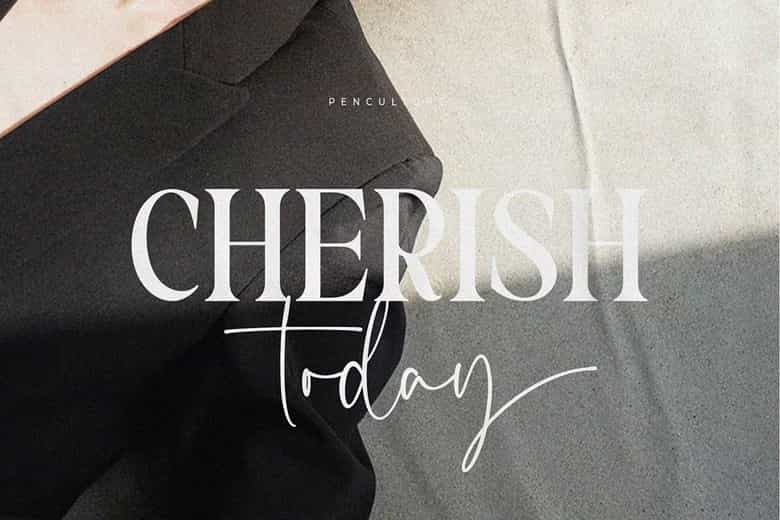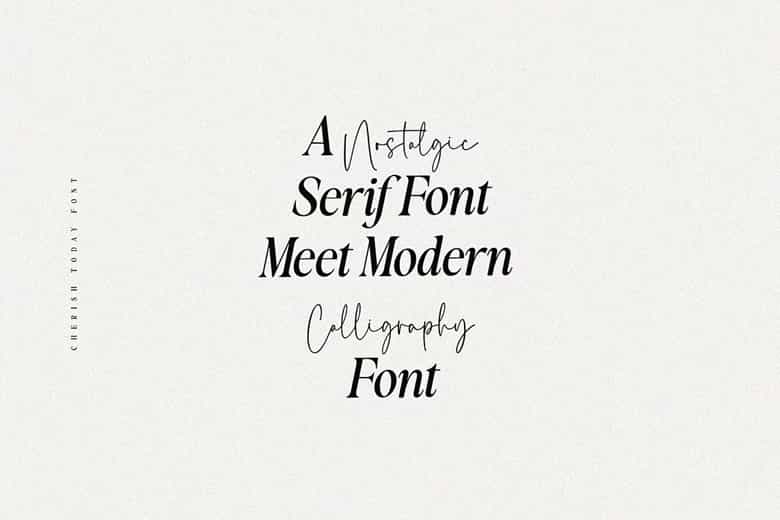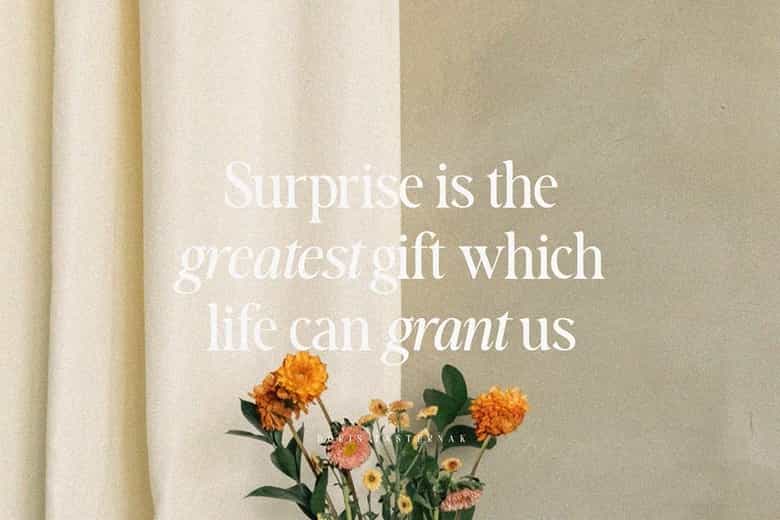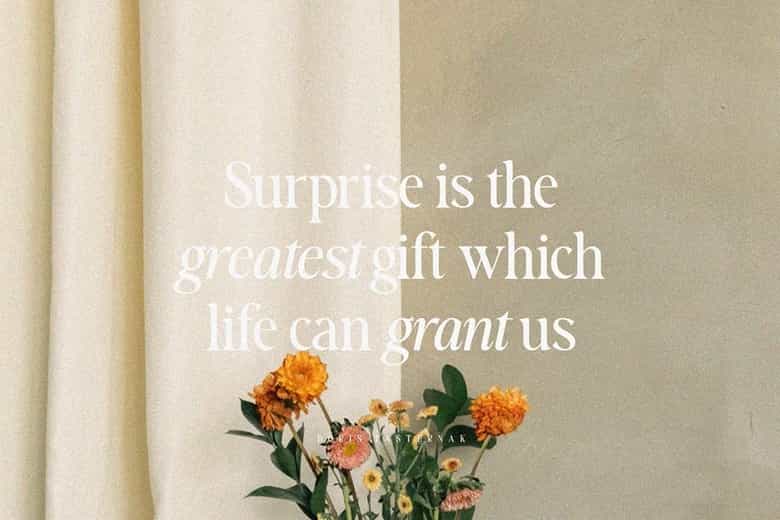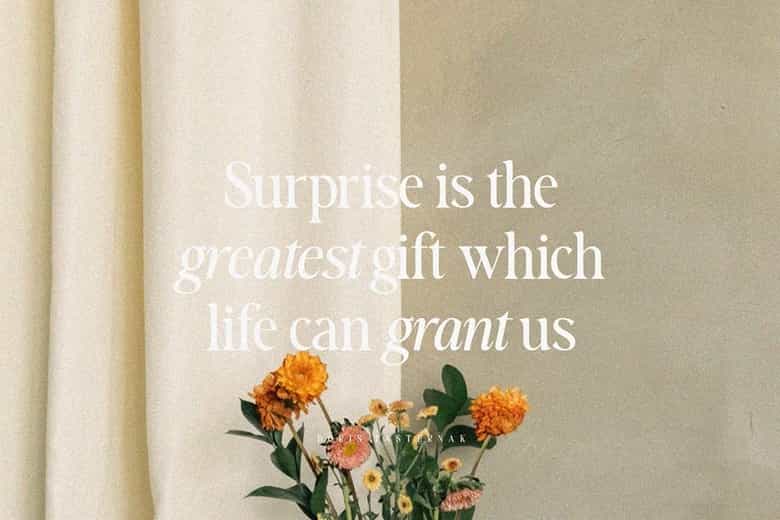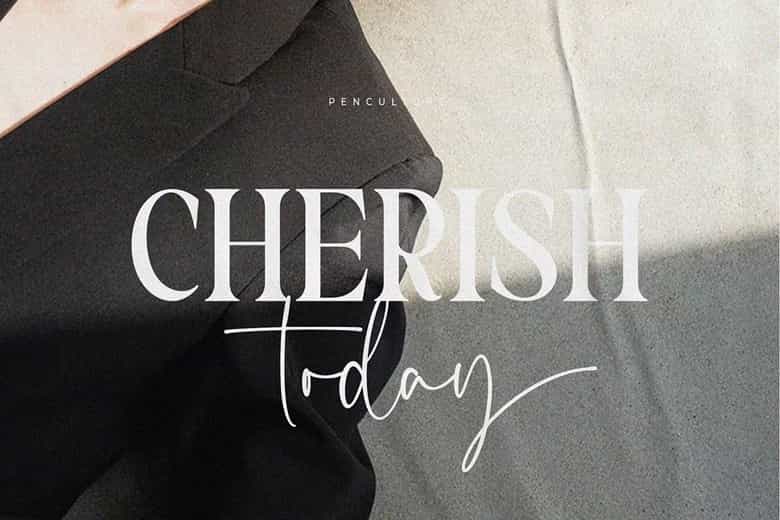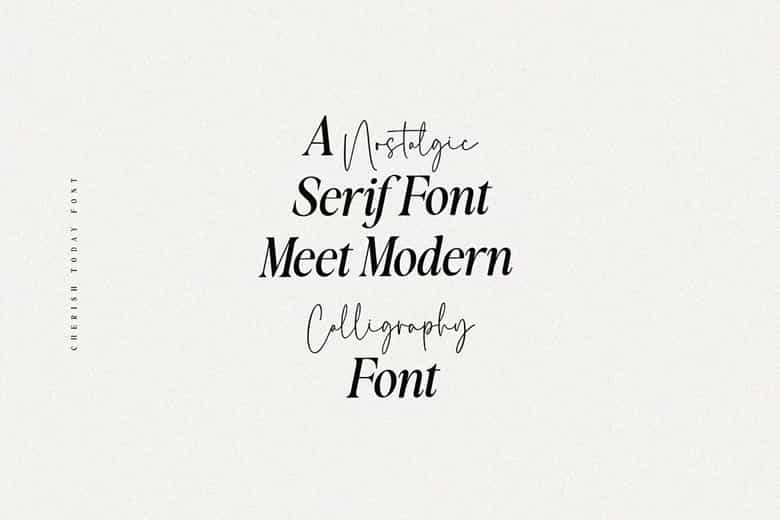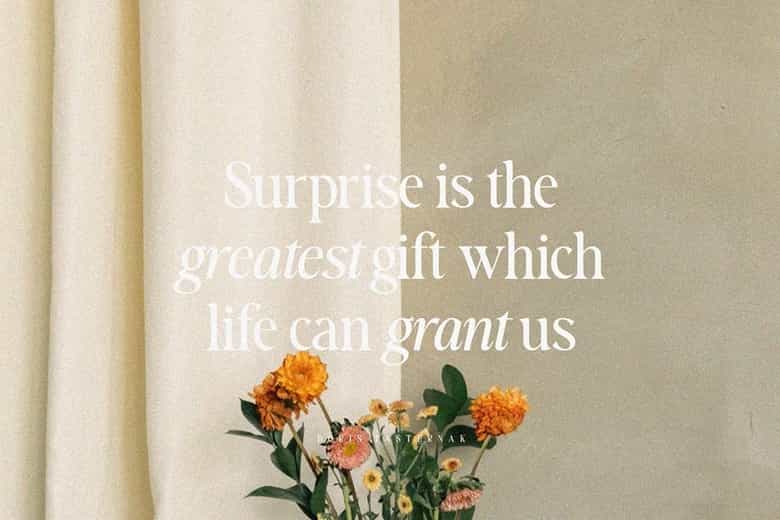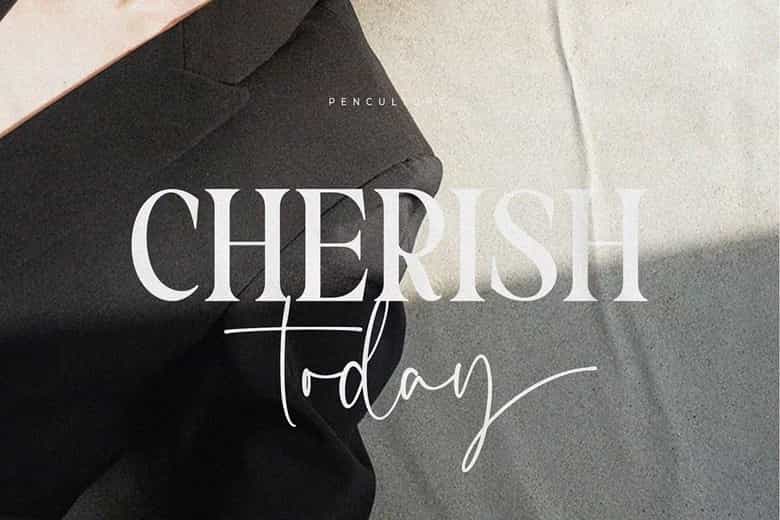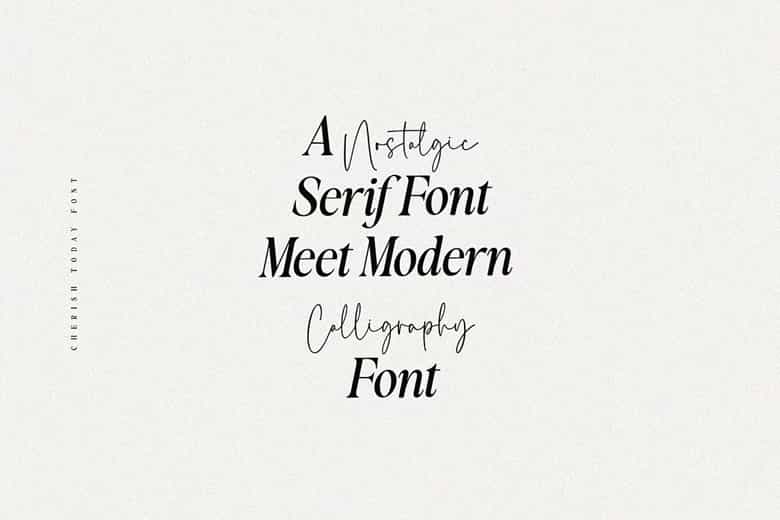
Cherish Today Font Duo
Cherish Today is a fantastic serif and script cool and modern font duo. This font is beautifully stylish, graceful, and will really help set your priceless creations in your beautiful creations aside from the others and make them grounded, natural.